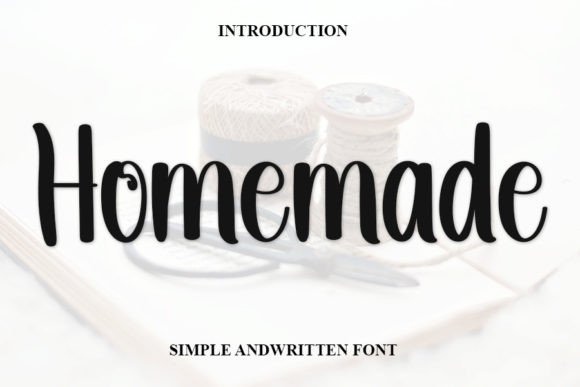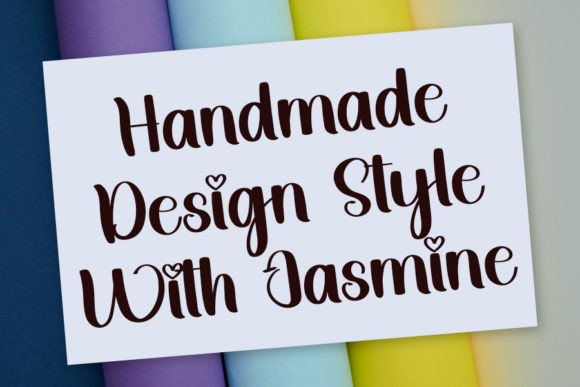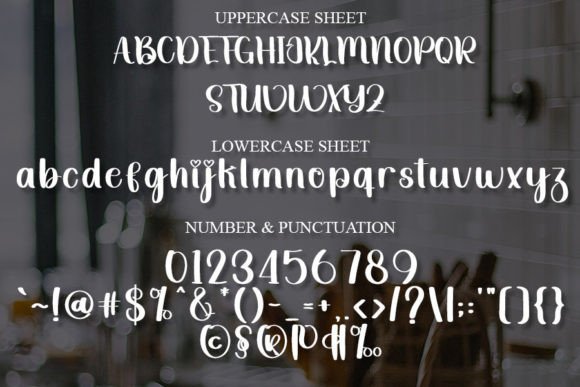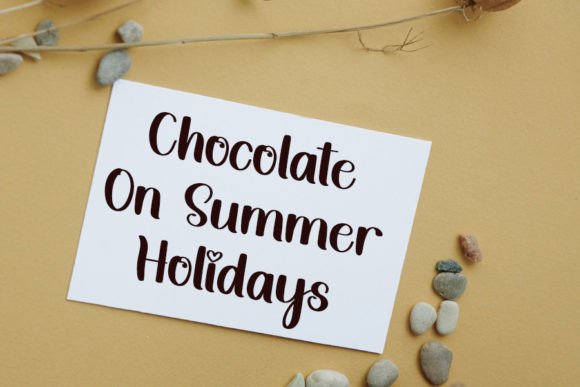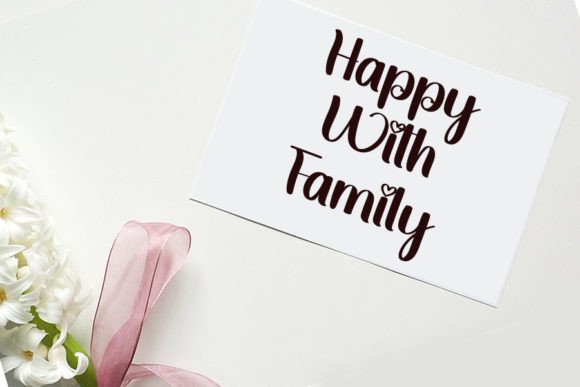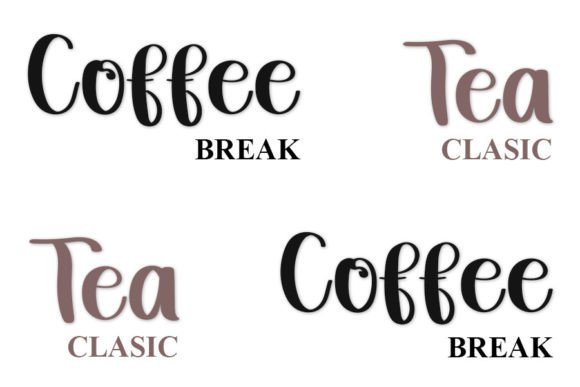
Homemade Font
About Homemade Font
“Homemade” is a beautiful and refined script font that embodies a sense of class, elegance, and modernity. With its versatile and sophisticated appearance, this font serves as a valuable asset for designers and creatives seeking to enhance a wide range of design projects.
This font is well-suited for various design applications, making it a versatile choice. Whether you’re engaged in logo design, branding materials, invitations, stationery, wedding designs, social media posts, or any other creative endeavor, “Homemade” seamlessly integrates into your work, introducing an element of sophistication and charm.
The font’s modern and refined script style positions it as an excellent option for creating visually appealing and memorable designs. It is an ideal choice for those looking to establish a strong brand identity, craft elegant wedding invitations, or curate engaging social media content. “Homemade” can help you achieve your design goals with flair.
By incorporating “Homemade” into your projects, you can infuse them with a sense of beauty and contemporary elegance. Its classy and refined qualities have the power to leave a lasting impression on your audience, ensuring that your designs effectively stand out. Whether you’re a professional designer or someone passionate about creating visually stunning visuals, “Homemade” is a font that can elevate your creative work and help you achieve your desired impact.